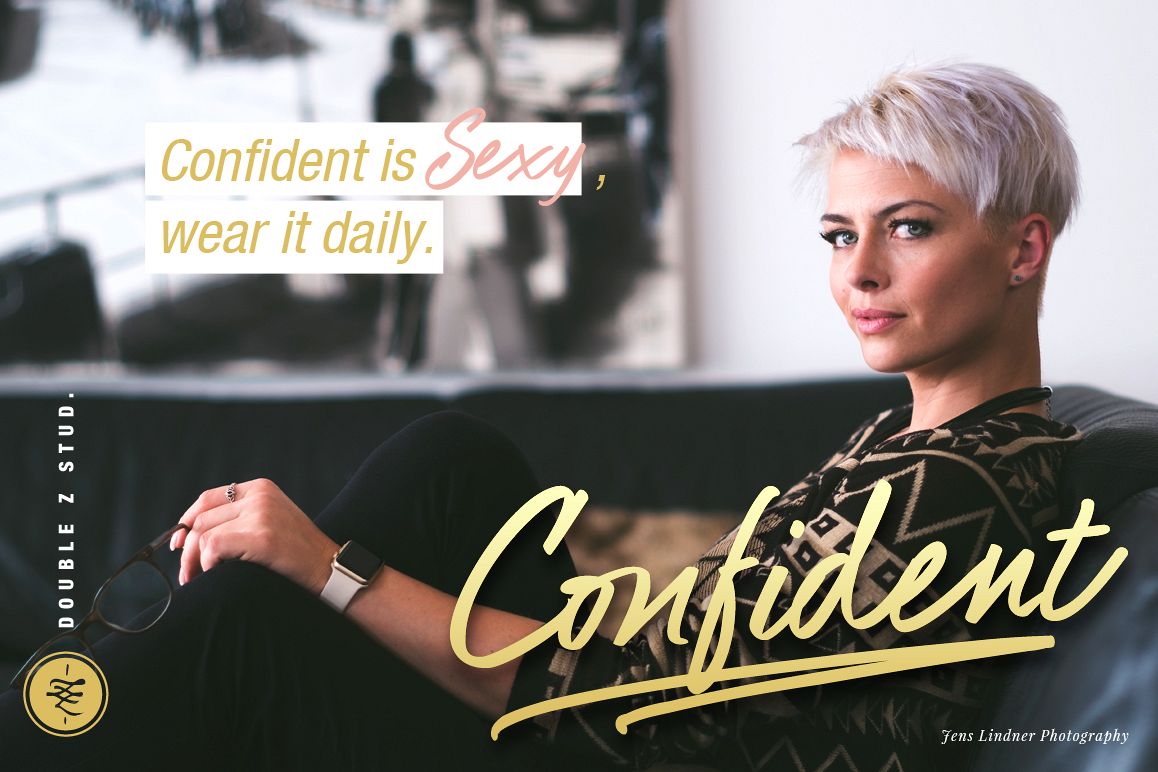
Ballies - Marker Script
Ballies
PROUDLY PRESENT
Ballies is a beautiful and elegant marker script. Signature style with smooth flowing, perfect for designing blog logo, website logo, print ads, book covers, film covers, apparel, cards, logos, posters, etc. Opentype features gives you more alternatives in designing.